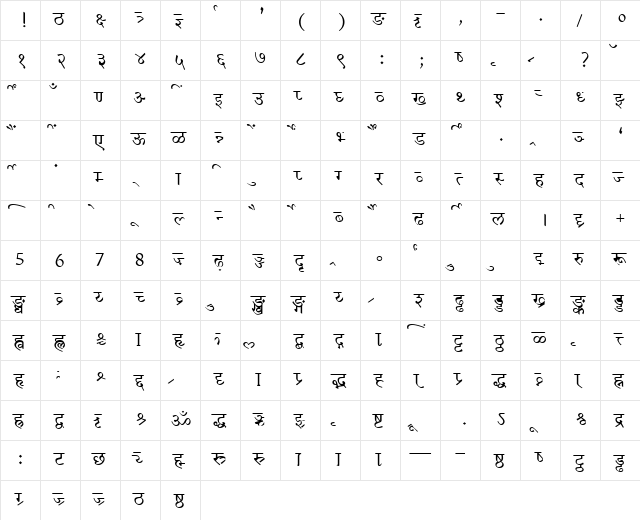
AkrutiDevRahul Normal
Design Context for AkrutiDevRahul Typeface
AkrutiDevRahul offers clean, dependable letterforms without strong stylistic allegiance, making it a practical choice for designers who need flexibility.